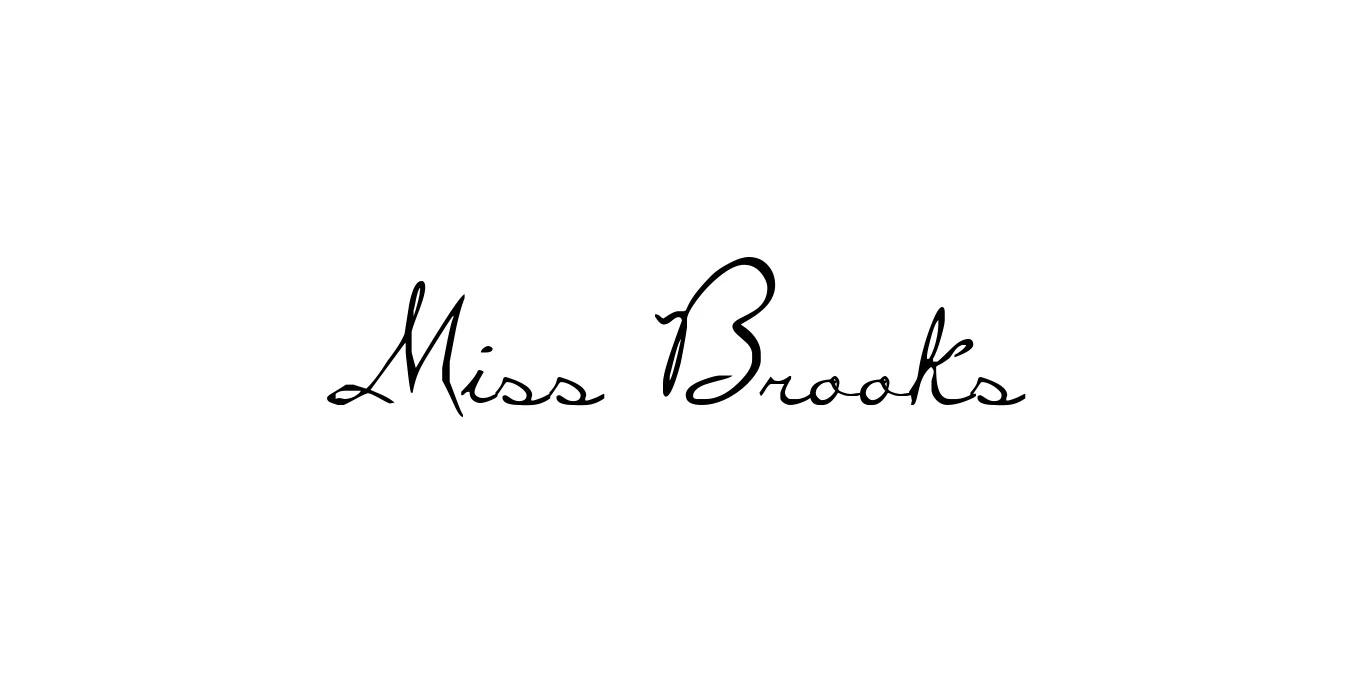
Miss Brooks
Designed by Keithzo
Miss Brooks is an elegant and sophisticated script typeface that captures the essence of fluid, natural handwriting. Designed by the talented Keithzo, this font stands out for its graceful curves and rhythmic flow, making it a favorite for projects that require a personal touch. Its delicate strokes and well-balanced letterforms evoke a sense of femininity and classic charm, making it highly suitable for high-end branding and artisanal designs.
The font includes a variety of decorative ligatures and stylistic alternates, allowing designers to create unique typographic compositions. Whether used for wedding invitations, fashion editorials, or luxury packaging, Miss Brooks provides a versatile aesthetic that bridges the gap between traditional calligraphy and modern digital design. Its legible yet expressive nature ensures that it remains functional across both print and digital media platforms.
Miss Brooks Best Uses
Perfect for invitations, envelopes, and RSVP cards with a romantic feel.
Ideal for logos in the beauty, fashion, and boutique retail sectors.
Great for creating aesthetic quotes and eye-catching Instagram graphics.
Adds a luxury, handcrafted touch to product boxes and labels.